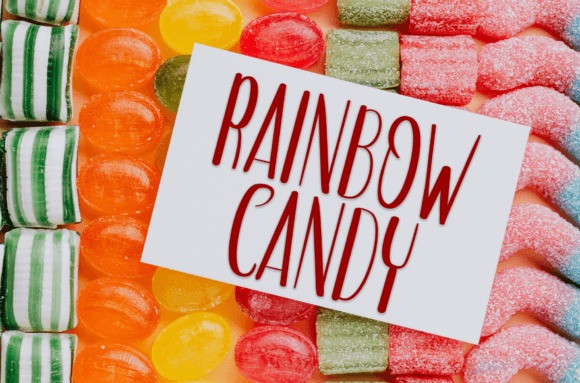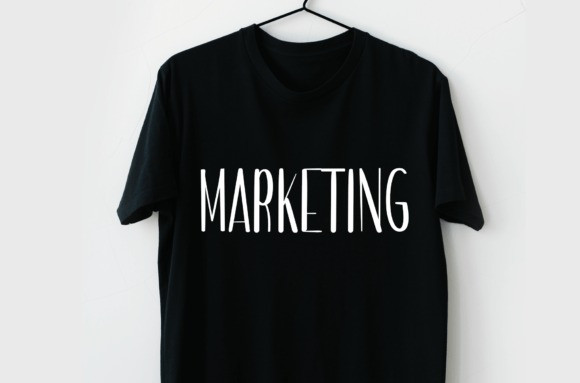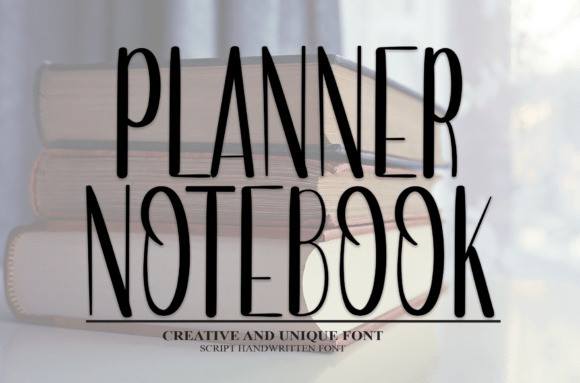
Planner Notebook Font
Planner Notebook Font is a cool, simple, and playful handwritten font. Incredibly versatile, this font fits a wide pool of designs, elevating them to the highest levels. Add this font to your favorite creative ideas and notice how it makes them come alive!